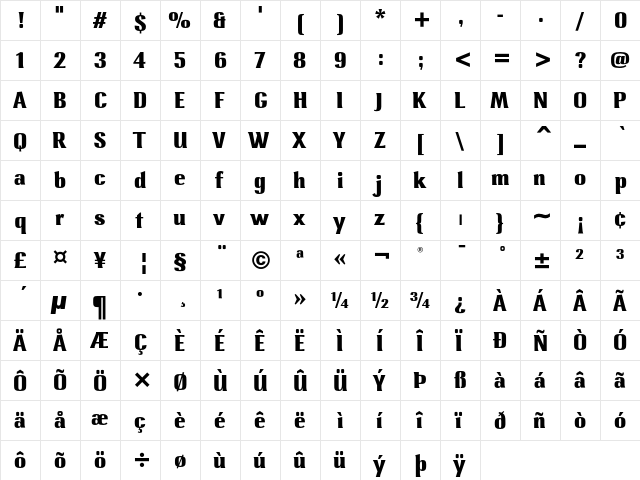
Lennox ITC Bold
Design Context for Lennox ITC Typeface
Lennox ITC offers clean, dependable letterforms without strong stylistic allegiance, making it a practical choice for designers who need flexibility. Its bold stroke weight gives it real presence on the page.
Pro Tip: Pair Lennox ITC with a font of contrasting weight or personality to build a more expressive typographic hierarchy.